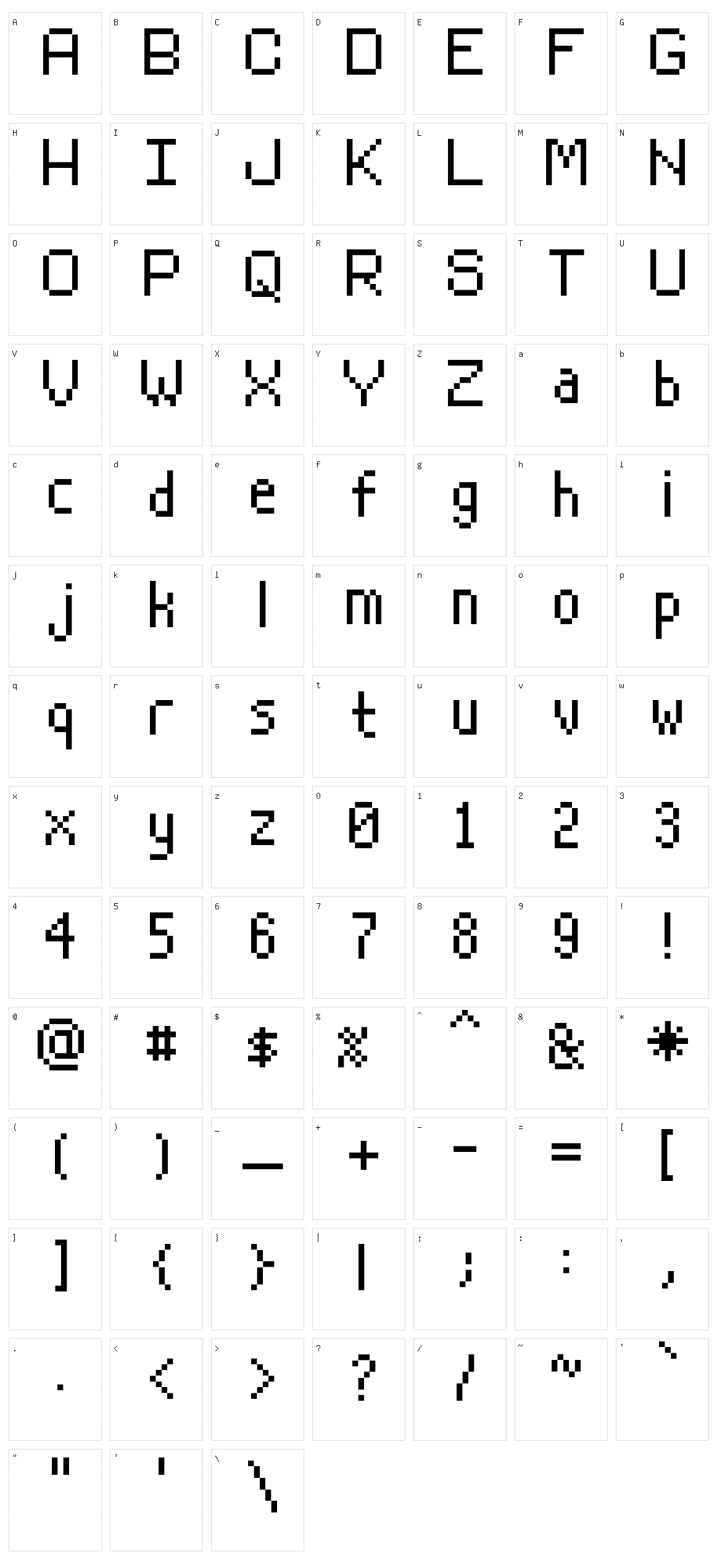
Rasterman
Designed by: Mirz123
Rasterman Font
Original font created by Mirz (Michelle Lehmann)
This font is best used at 6pt in most graphic programs.